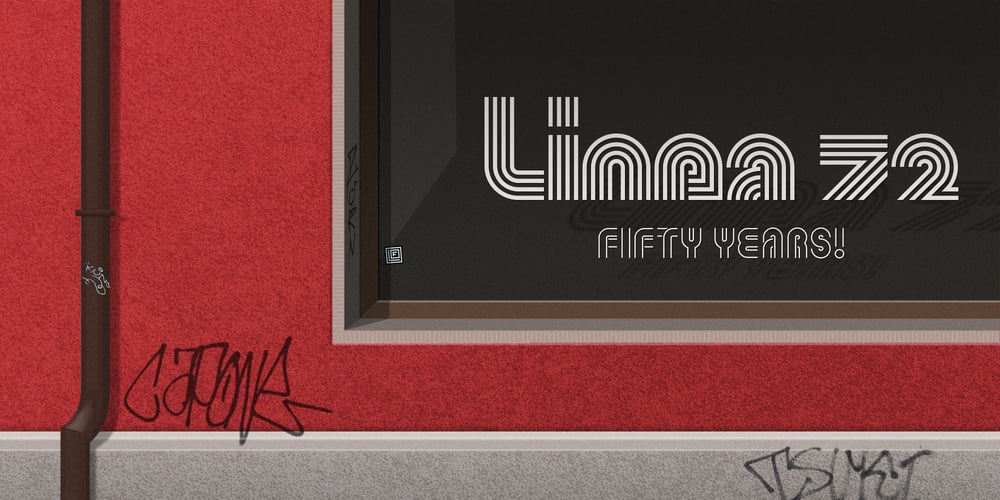
Linea 72 Font Family was designed by Thomas Hirter, Roland Hirter and published by OLOF Type Foundry. Linea 72 contains 2 styles and family package options. Linea 72 is a typical seventies display typeface that was designed by Roland Hirter back in the phototypesetting days, when typefaces were really drawn by hand. In this static environment each work step took its time. With the decision to digitize this typeface his son Thomas Hirter also chose to develop it further with todays technical possibilities. That’s why the font now includes over 600 glyphs and ten stylistic sets, offering different stylistic alternates of several letters. Linea 72 comes in the two original styles Regular and Kontur.